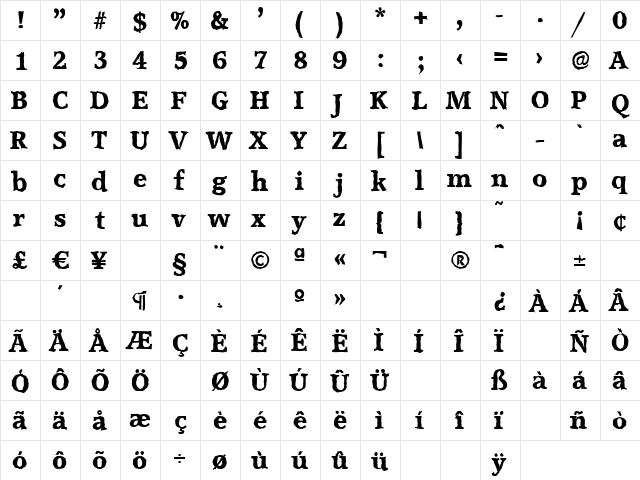
MichaelBeckerAntique-ExtraBold Regular
Design Context for MichaelBeckerAntique-ExtraBold Typeface
MichaelBeckerAntique-ExtraBold wears its vintage influences proudly, with letterforms that recall mid-century signage, classic packaging, and nostalgia-driven design. Its bold stroke weight gives it real presence on the page.
Ideal for diner signage, record shop branding, 70s/80s-themed projects, and heritage product labels.
Font Pairing: Combine MichaelBeckerAntique-ExtraBold with a simple slab or neutral sans — period-accurate companions reinforce the vintage feel without competing for attention.
Pro Tip: Lean into MichaelBeckerAntique-ExtraBold's period character by pairing it with aged paper textures, muted colour palettes, and vintage illustration styles.